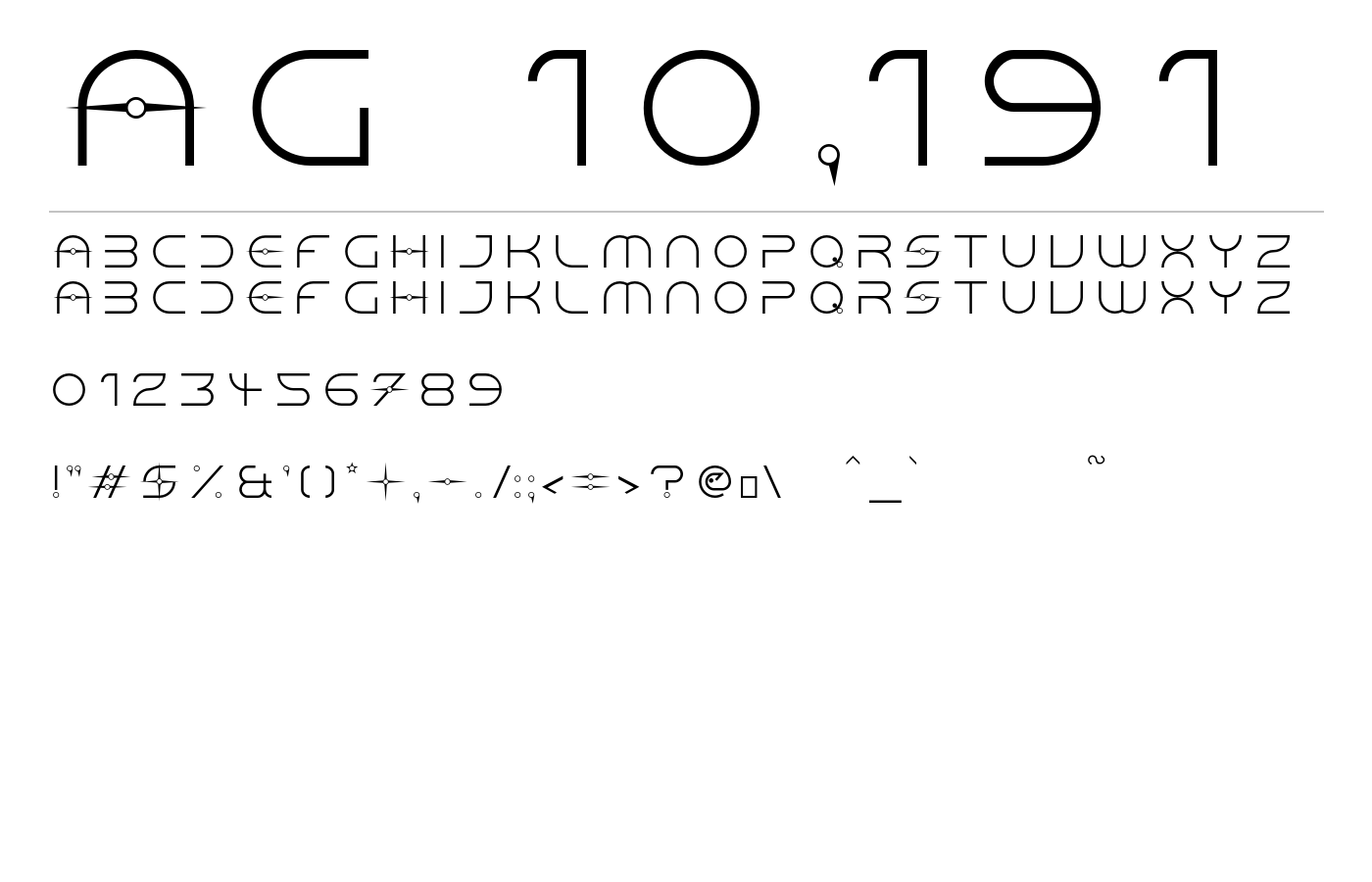
AG 10,191 is a sleek, futuristic sans serif font characterized by its thin strokes, clean lines, and geometric shapes. Its unique letterforms, such as stylized terminals and circular motifs, give it a modern, tech-inspired personality, making it perfect for branding, digital projects, and editorial designs that seek a cutting-edge, minimalistic vibe. This font works best in headlines and logos where its distinctive style can stand out and capture attention.
AG 10,191 Font